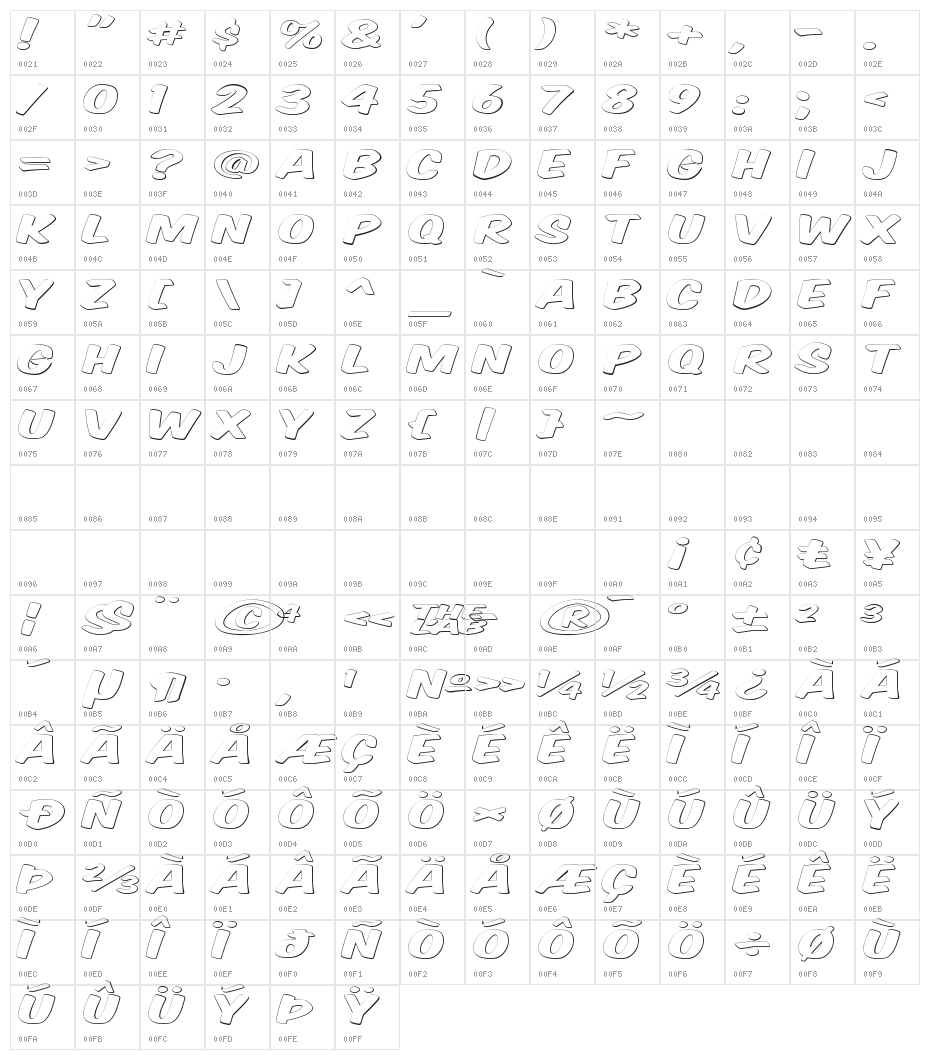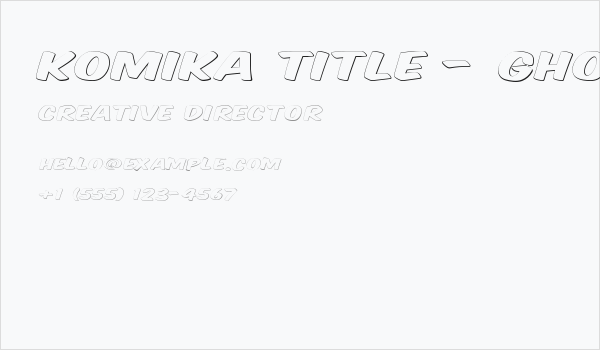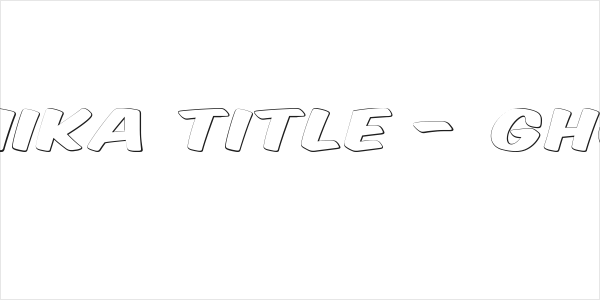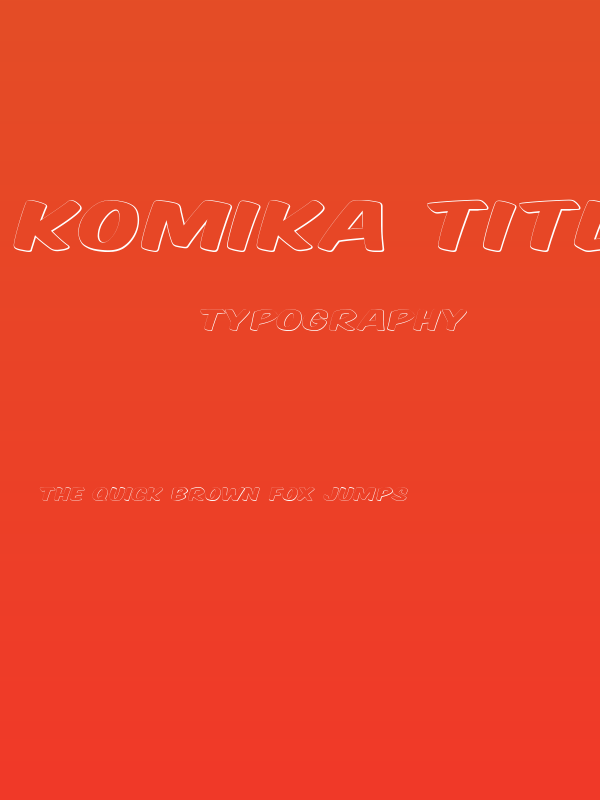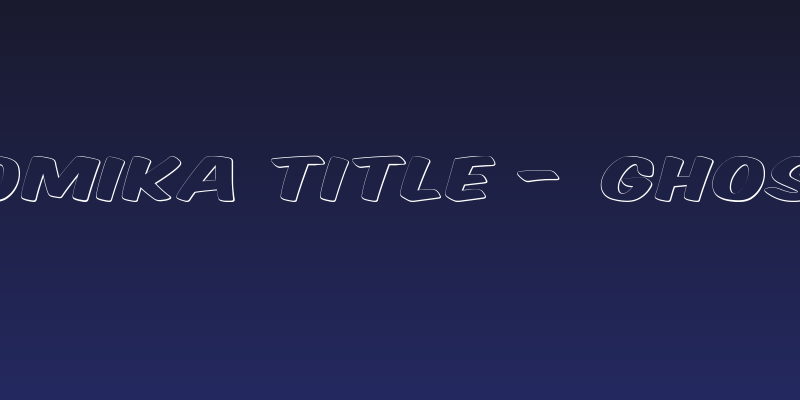
Komika Title - Ghost Font
Komika Title - Ghost Description
This font features a playful and bold style with a three-dimensional effect, giving the letters a shadowed appearance. The characters are rounded and thick, with a slight slant that adds a dynamic and energetic feel. The uppercase and lowercase letters maintain a consistent style, with the numbers and special characters following suit. The font's design is reminiscent of comic book lettering, making it ideal for projects that require a fun and engaging visual impact.
| Overall Style | Playful, Comic |
| Proposed Projects | Ideal for comic books, children's books, playful branding, and eye-catching posters. |